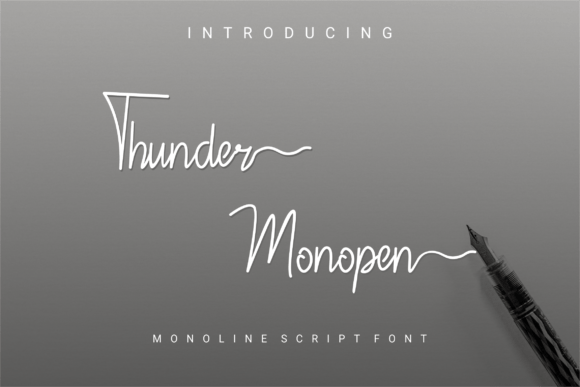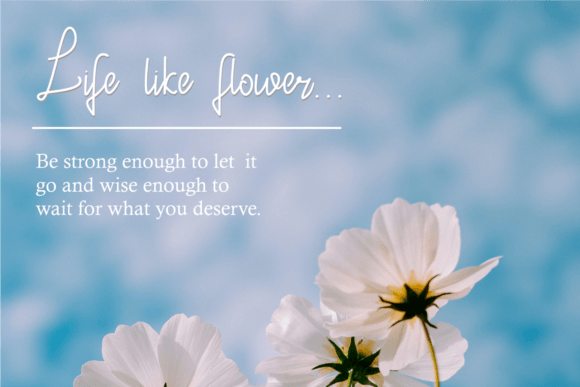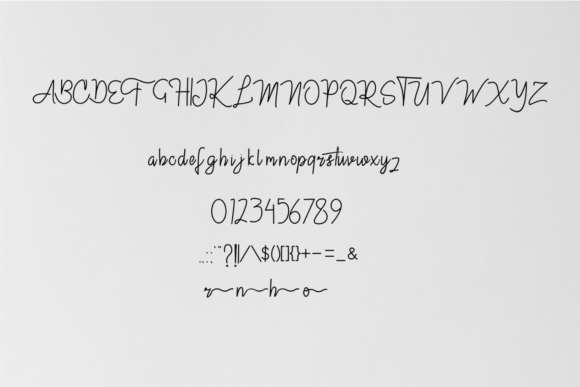
Thunder Monopen Font
About Thunder Monopen Font
Introducing Thunder Monopen, a dainty and authentic script font that adds a touch of charm to your branding projects. This versatile font is suitable for various applications such as logos, t-shirt printing, exports, and more. It possesses a unique charm that makes it stand out in a wide range of contexts.
The beauty of Thunder Monopen lies in its dainty and authentic script style, which brings a touch of elegance and personality to your text. Whether you’re working on a logo, designing t-shirts, or exploring export-related branding, Thunder Monopen is ready to make your projects outstanding.
Consider using Thunder Monopen for logo designs, where its authentic script can create a distinctive and memorable brand identity. Picture it on t-shirts, adding a dainty and stylish flair to your apparel designs. Envision it in export-related branding, contributing to a unique and authentic presentation.
The versatility of Thunder Monopen allows it to shine in various contexts, making it suitable for a wide range of branding applications. Its authentic script style adds a personal and handcrafted feel to your designs, making them more engaging and memorable.
In summary, Thunder Monopen is not just a font; it’s a creative tool that brings a dainty and authentic touch to your branding projects. Its script style and versatility make it suitable for logos, t-shirt designs, exports, and beyond, allowing you to infuse your projects with a unique and stylish charm. Let Thunder Monopen be the font that elevates your branding endeavors with its dainty and authentic script.